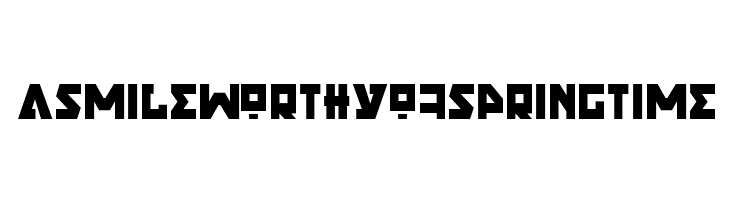
Unity Dances Font
- Font: Unity Dances
( Fonts by Iconian Fonts - Daniel Zadorozny )
A bold, geometric font with angular lines and a blocky appearance.